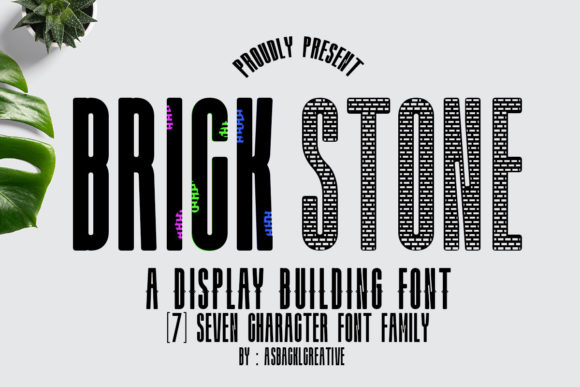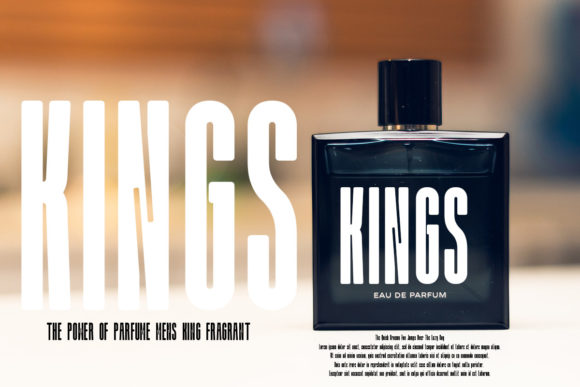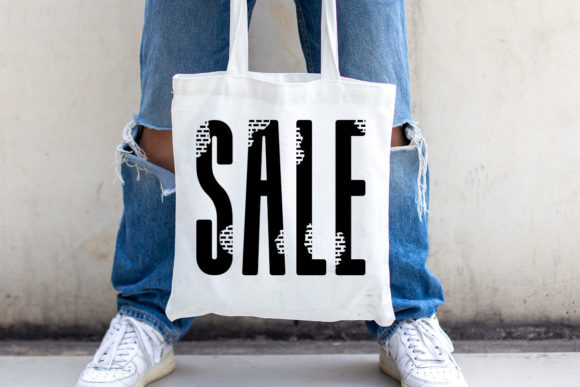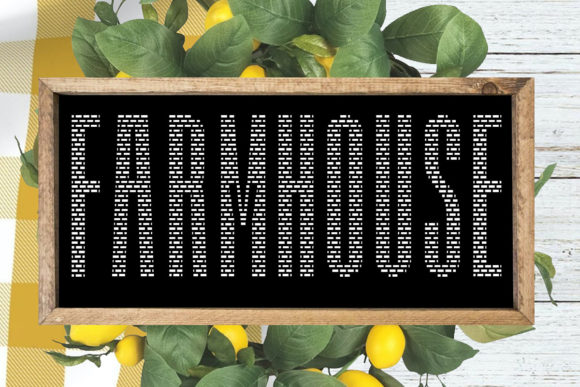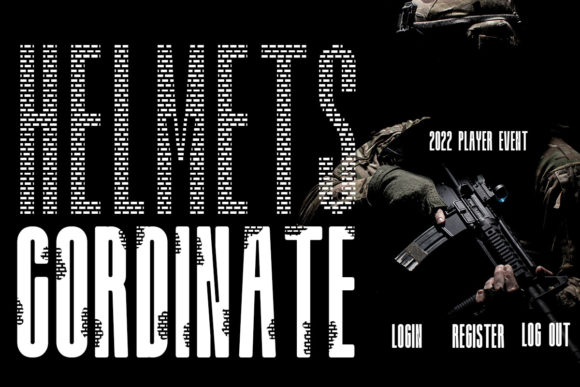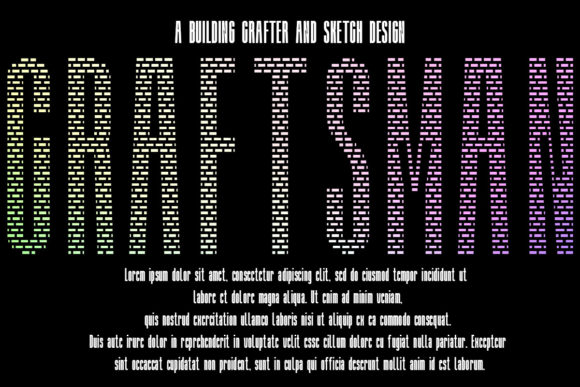
Introduction to Brick Stone Font
Brick Stone is a simple but very charming font with unique and classic transitions that can make your designs more beautiful and majestic, this font has the potential to make your designs look bold and dashing and is also suitable for book covers, product brands, screen printing on clothes, and much more that you can use with these fonts.
Key Features of Brick Stone Font
Why Choose Brick Stone Font?
Brick Stone Font offers exceptional quality and versatility, making it a valuable addition to your design toolkit. Whether you’re creating for personal projects or commercial use, Brick Stone Font delivers professional results.